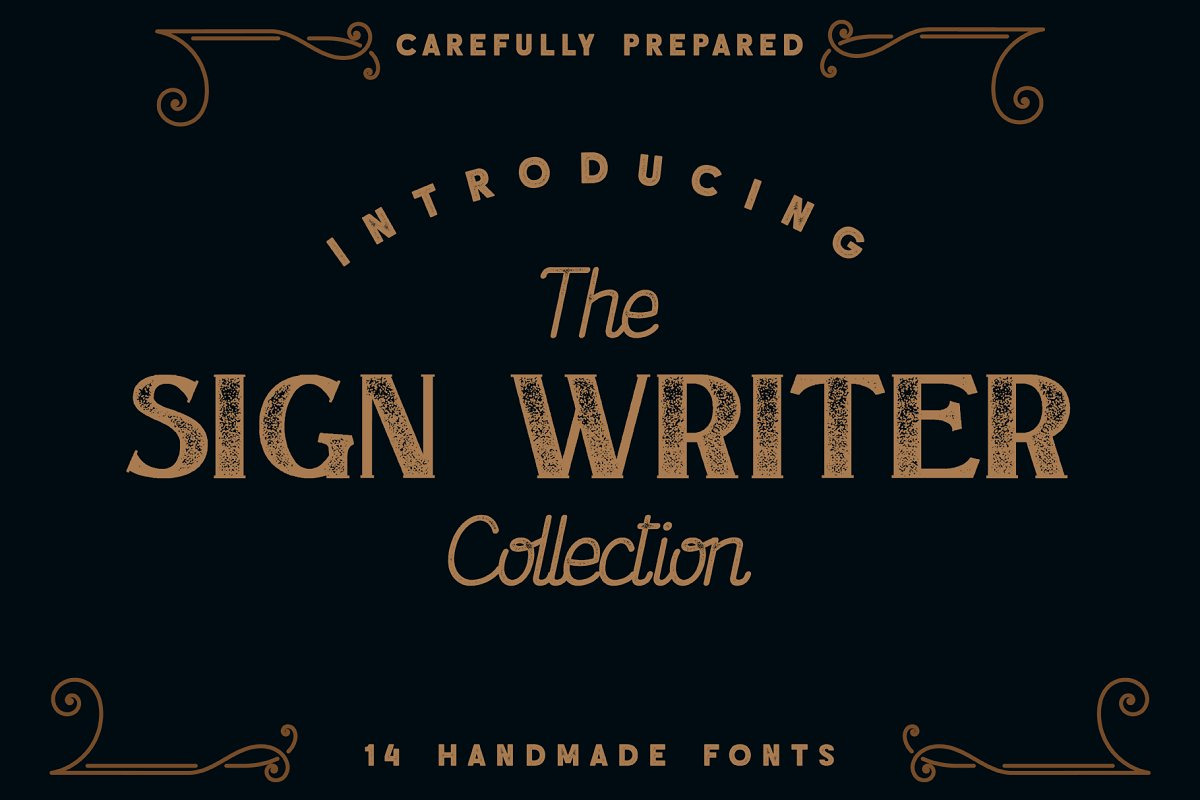
The Sign Writer Collection Font
The Sign Writer Collection Font is perfect for various design applications including vintage storefront signage, traditional barbershop branding, classic diner menus, heritage business logos, retro advertising campaigns, old-fashioned market displays, artisan craft shop signs, nostalgic brand identities, traditional sign painting workshops, and authentic Americana design projects. This masterful typeface excels in projects requiring hand-painted authenticity and traditional craftsmanship that celebrates the golden age of commercial sign writing and artisanal lettering traditions.
What makes The Sign Writer Collection Font so exciting is its authentic representation of traditional sign painting craftsmanship through letterforms that perfectly capture the skilled hand of master sign writers and the timeless appeal of hand-painted commercial art. The font features precise brush stroke variations that suggest years of practiced skill, traditional proportions that honor classic sign writing standards, and authentic character details that evoke the pride and artistry of professional sign painters. Its distinctive craftsman character and heritage authenticity make it perfect for businesses seeking to communicate tradition, quality, and the enduring appeal of handcrafted commercial art.
The Sign Writer Collection Font family includes multiple traditional styles and authentic variations that enhance its versatility for different heritage signage applications. Each style maintains the font's signature craftsman character while providing options for various traditional sign writing approaches. The family also features period-appropriate decorative elements, traditional borders, and classic ornamental flourishes that can be combined with the letterforms to create cohesive heritage commercial design systems.
Whether you're developing heritage brands, traditional businesses, or nostalgic campaigns, The Sign Writer Collection Font Free Download provides authentic typography that transports audiences to the golden age of American commercial art and celebrates the artistry of traditional sign writing. This typeface transforms modern communications into timeless statements that promise quality craftsmanship and authentic business heritage. The font's artisanal appeal makes it particularly effective for traditional establishments, heritage brands, and businesses targeting audiences who appreciate authentic craftsmanship and vintage Americana.
The Sign Writer Collection Font stands out by delivering genuine sign writing authenticity that feels connected to real traditional craftsmanship rather than artificial vintage styling. Its carefully studied brush work patterns and traditional proportions ensure that designs feel authentically connected to sign painting heritage and artisanal traditions. From heritage business signage to nostalgic advertising campaigns, this font provides designers with tools to create communications that celebrate traditional craftsmanship and inspire appreciation for the lost art of hand-painted signage through masterful, heritage-inspired typography.